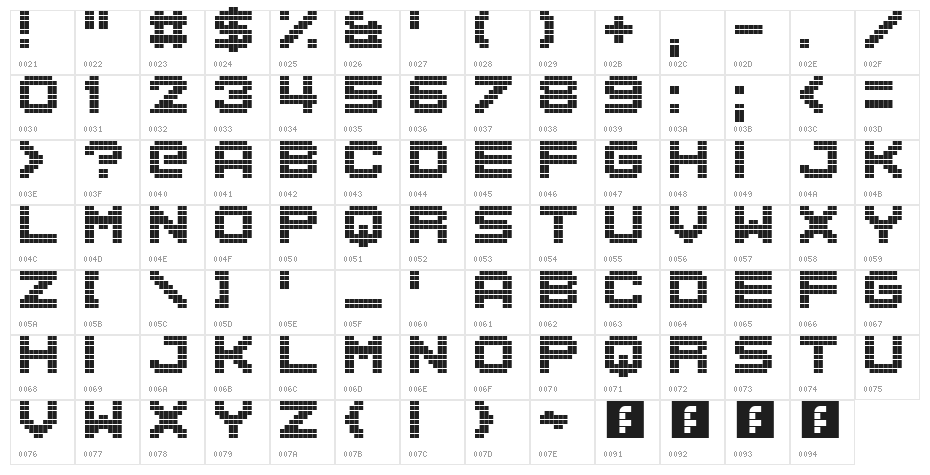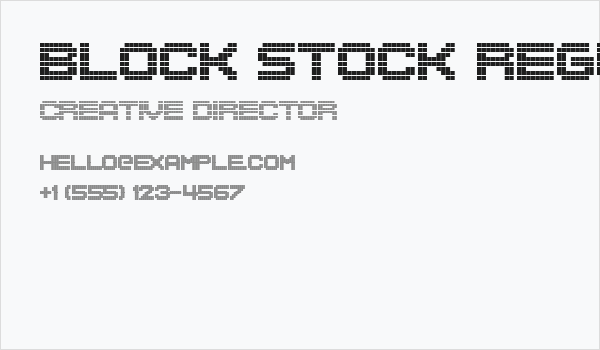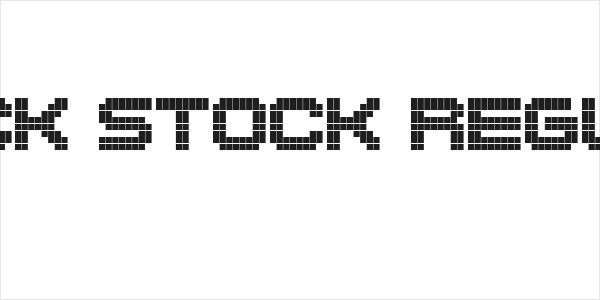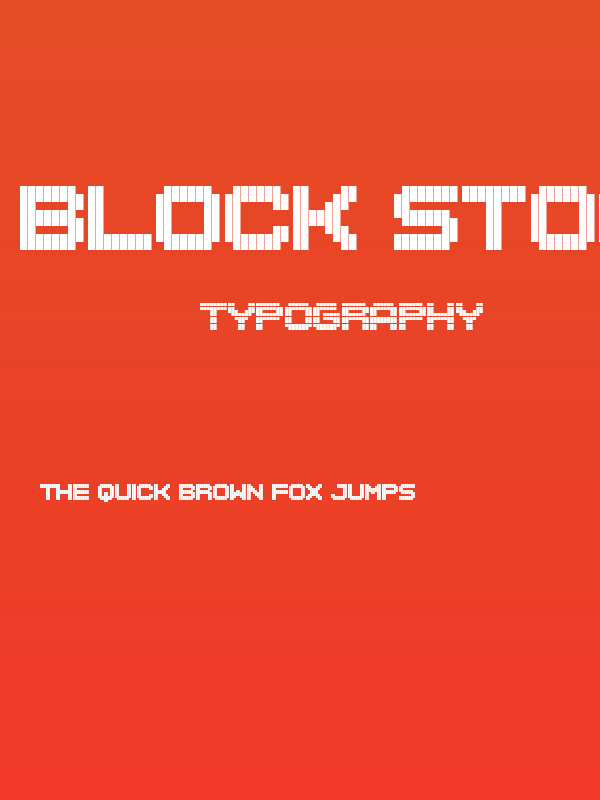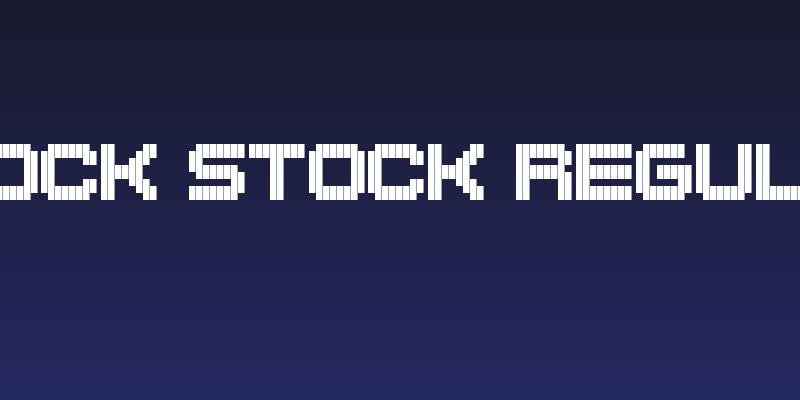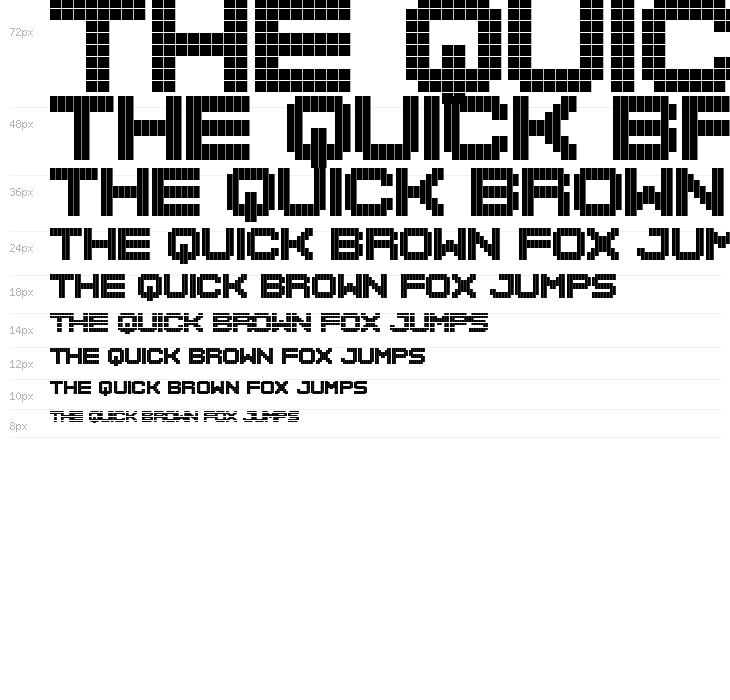
Block Stock Regular Font
Block Stock Regular Description
This font features a unique, pixelated design reminiscent of digital displays or retro video games. Each character is constructed from a grid of small squares, giving it a blocky and geometric appearance. The uniformity of the squares creates a consistent texture across all letters and symbols, making it highly distinctive. The uppercase and lowercase letters maintain the same height, emphasizing its monospaced nature. Numbers and special characters follow the same design principle, ensuring a cohesive look throughout. This style is both modern and nostalgic, capturing the essence of early digital typography.
| Overall Style | Modern, Retro |
| Proposed Projects | Ideal for video game design, digital art projects, tech-themed posters, and retro-style branding. |